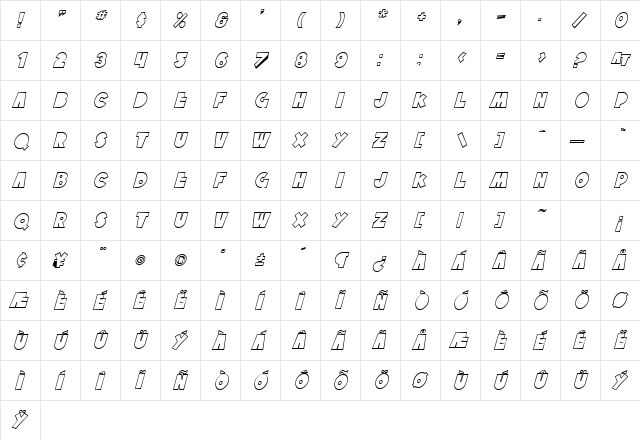
SF Tattle Tales Outline Italic
Design Context for SF Tattle Tales Outline Typeface
SF Tattle Tales Outline is built around its visual character rather than neutral utility — its distinctive forms are designed to make an impression at display sizes. The dynamic lean of this cut emphasises speed and emphasis in any layout.
Font Pairing: Pair with a clean neutral sans-serif for body copy to let SF Tattle Tales Outline's character lead without overwhelming the composition.
Pro Tip: Use SF Tattle Tales Outline exclusively at display sizes — it was designed to be seen, not read at length. Let a neutral companion handle body copy.